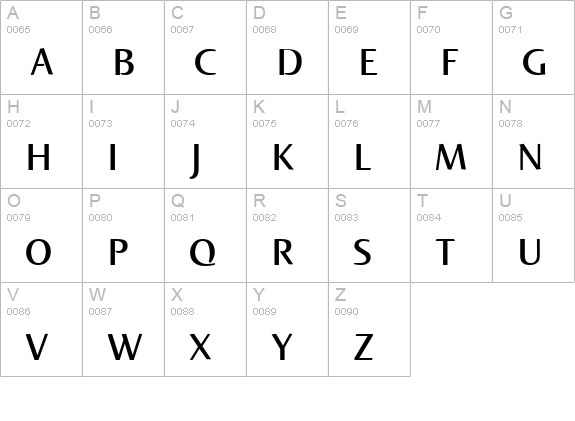
Norma Bold is a strong, high-contrast variant in the Norma typeface family \xE2\x80\x94 well suited to headlines, attention-grabbing titles, and strong calls-to-action.
Norma Bold font is a modern and stylish typeface that exudes confidence and sophistication. With its strong and bold letterforms, Norma Bold commands attention and is perfect for making a statement in headlines, titles, and branding materials. This versatile font is suitable for a wide range of design projects, from posters to logos to packaging. What makes Norma Bold even more appealing is that it is available for free download at FontsMarket.com. This means you can easily access this premium font without any cost, making it a valuable addition to your font collection. Don't miss out on the opportunity to elevate your designs with the impactful and striking Norma Bold font. Download it now and let your creativity shine!